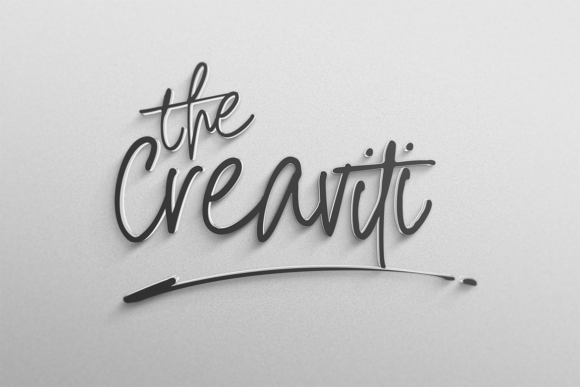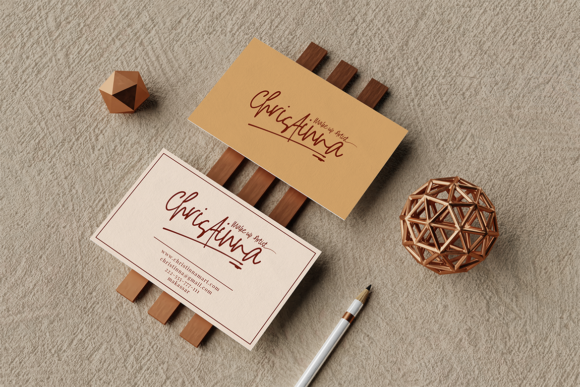
The Golden Rich Font
db-ku.com - Script & Handwritten -- The Golden Rich is an unique handwritten font. Whether you’re using it for crafting, digital designing, presentations, or greeting card making, it’s perfect!